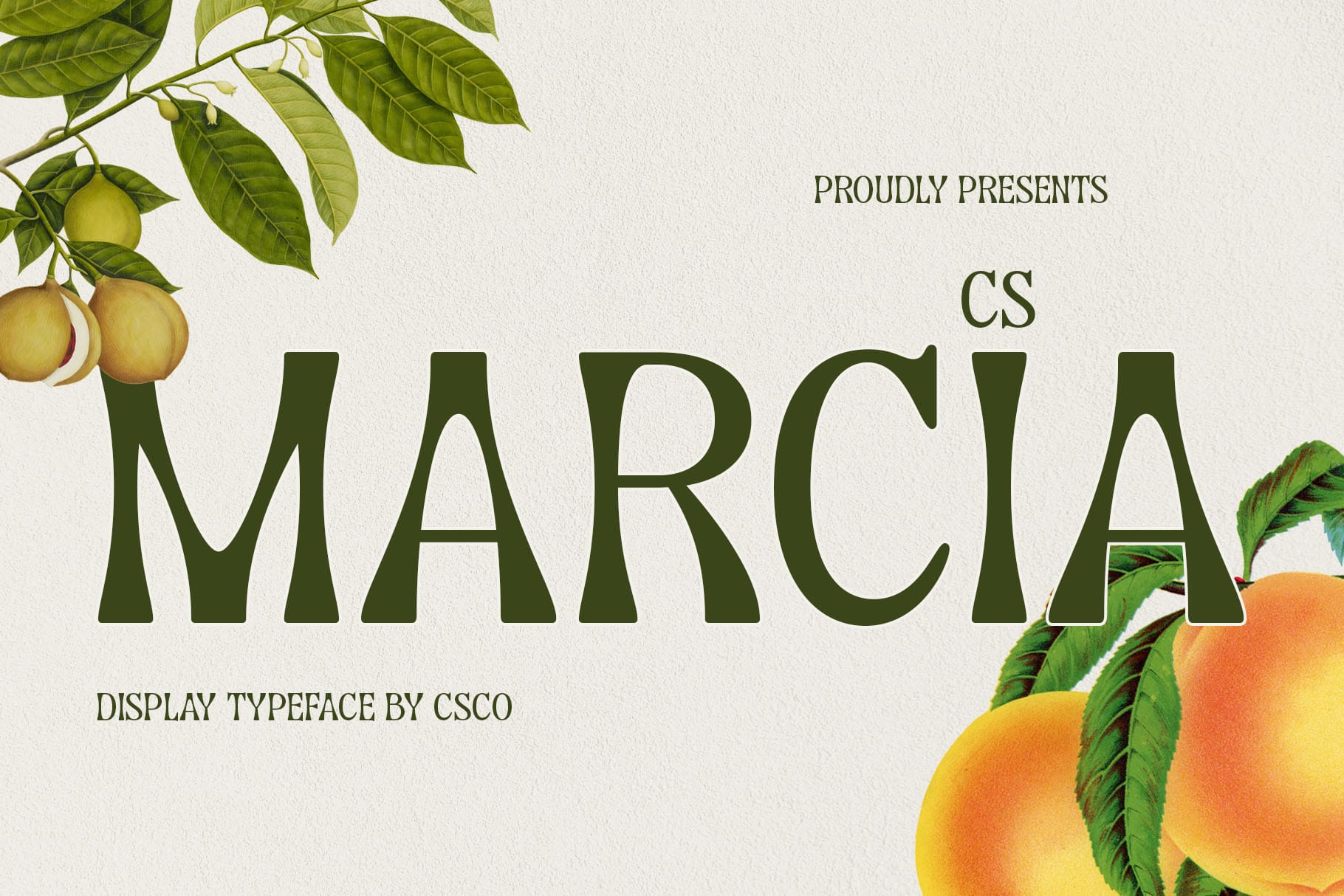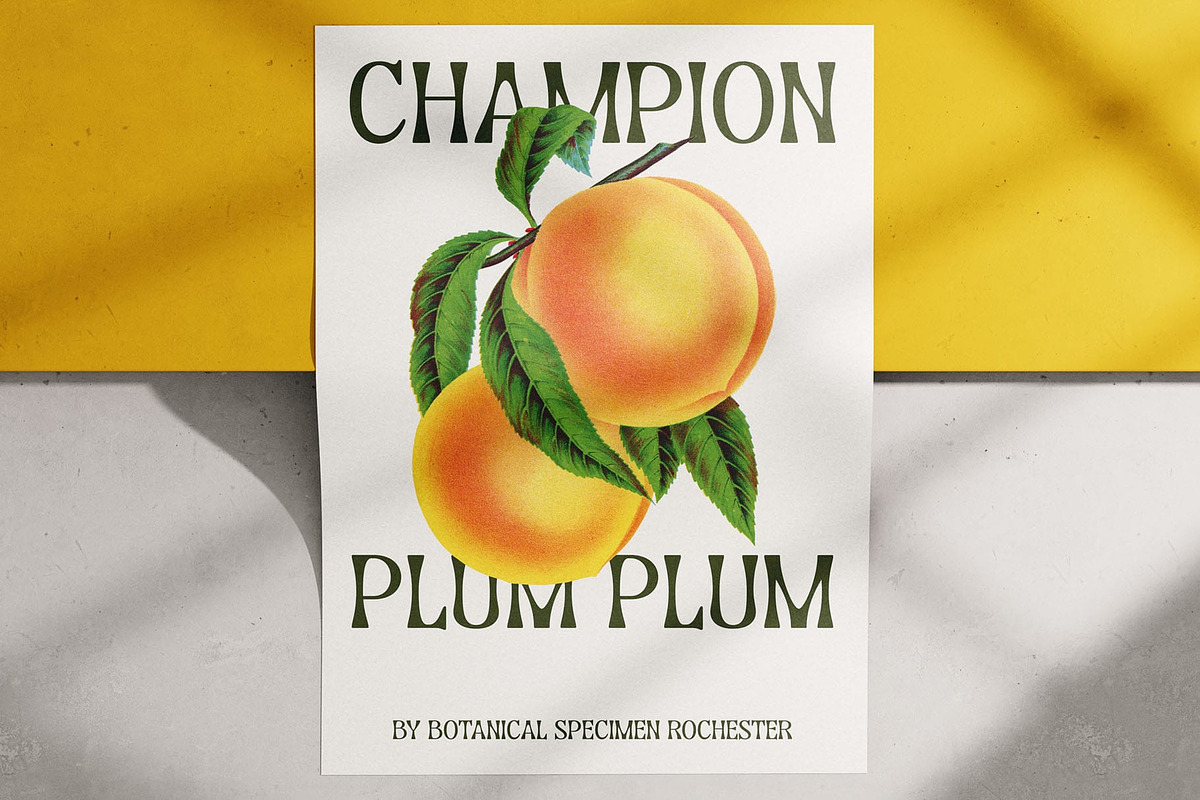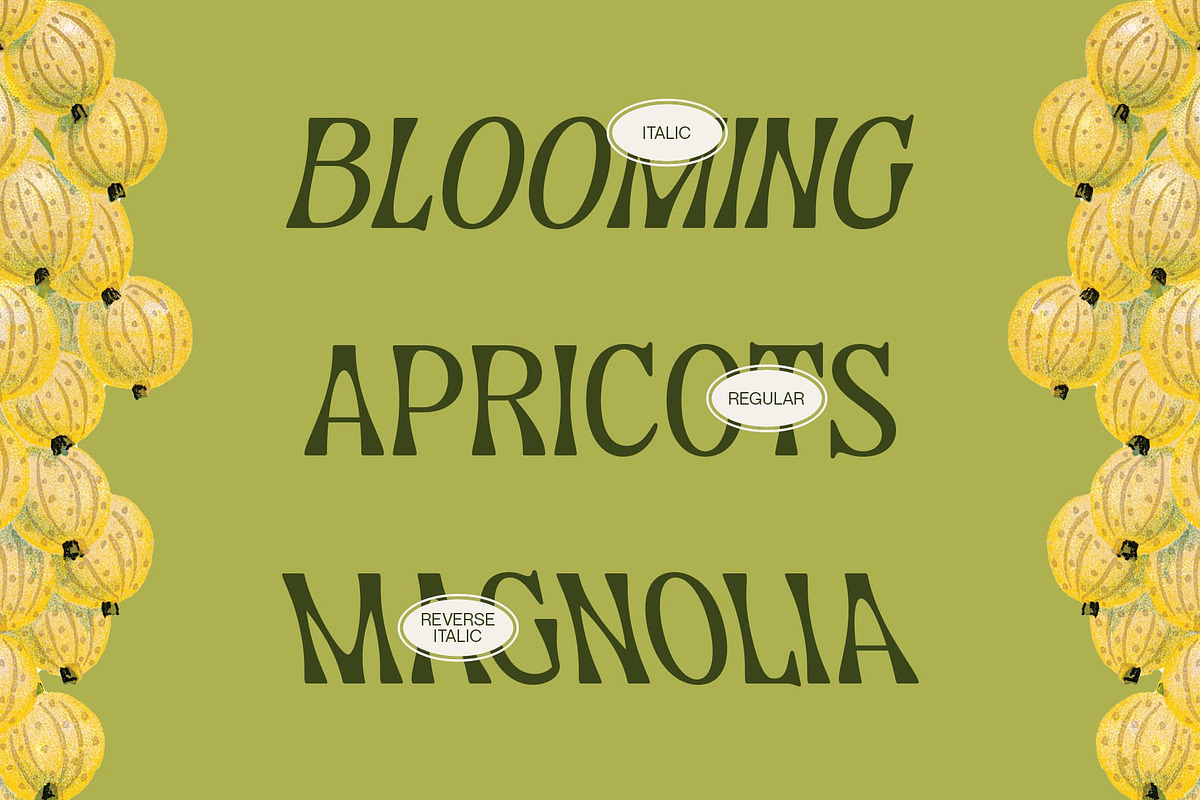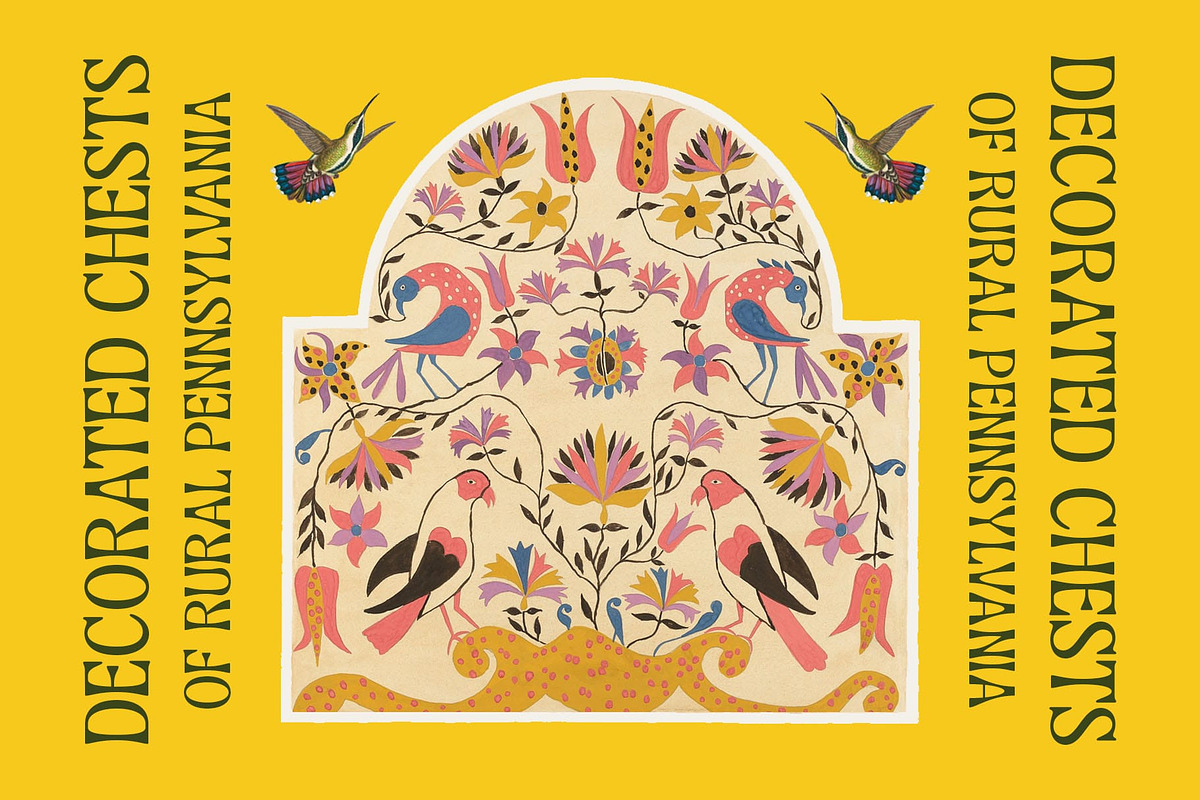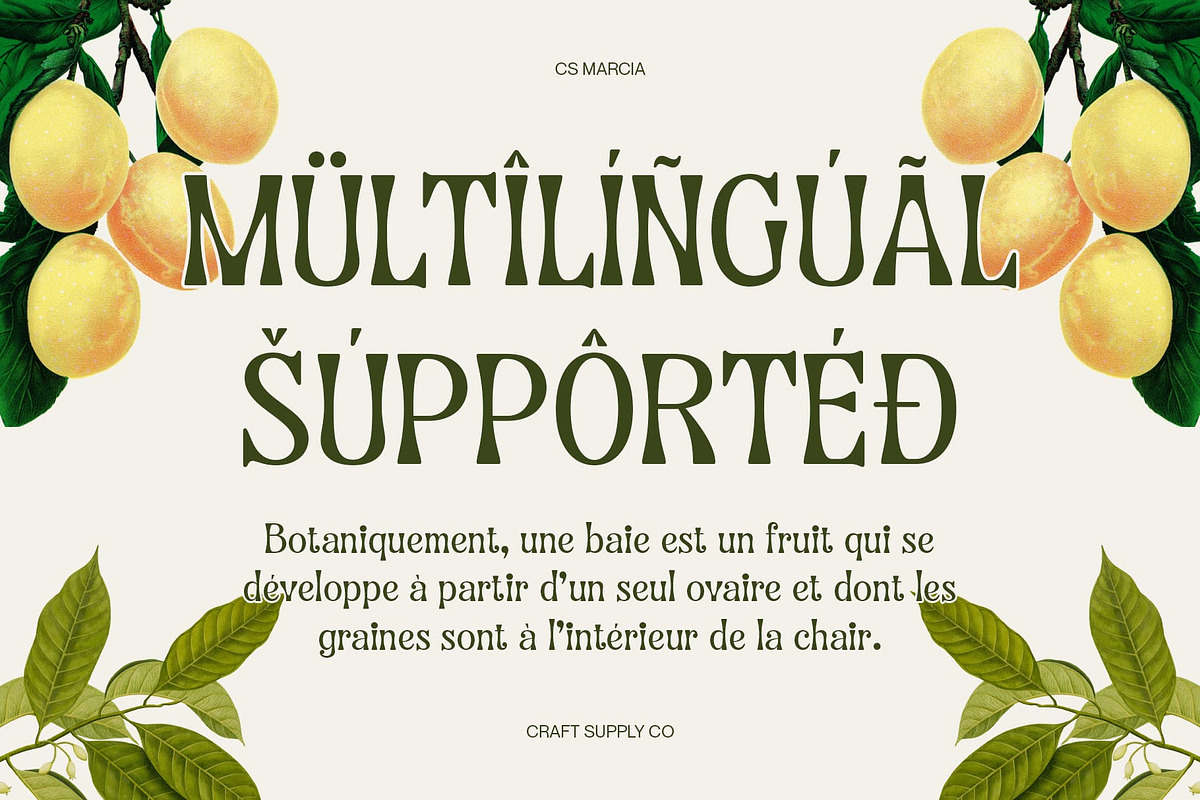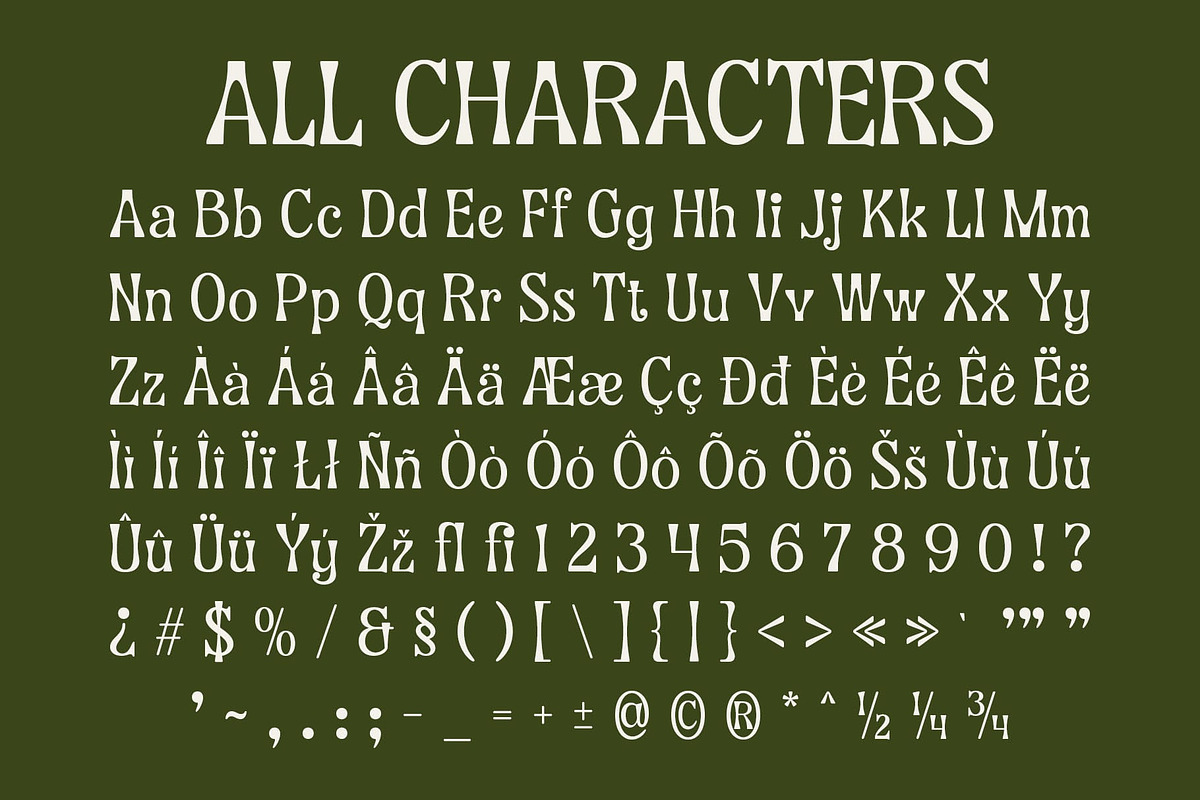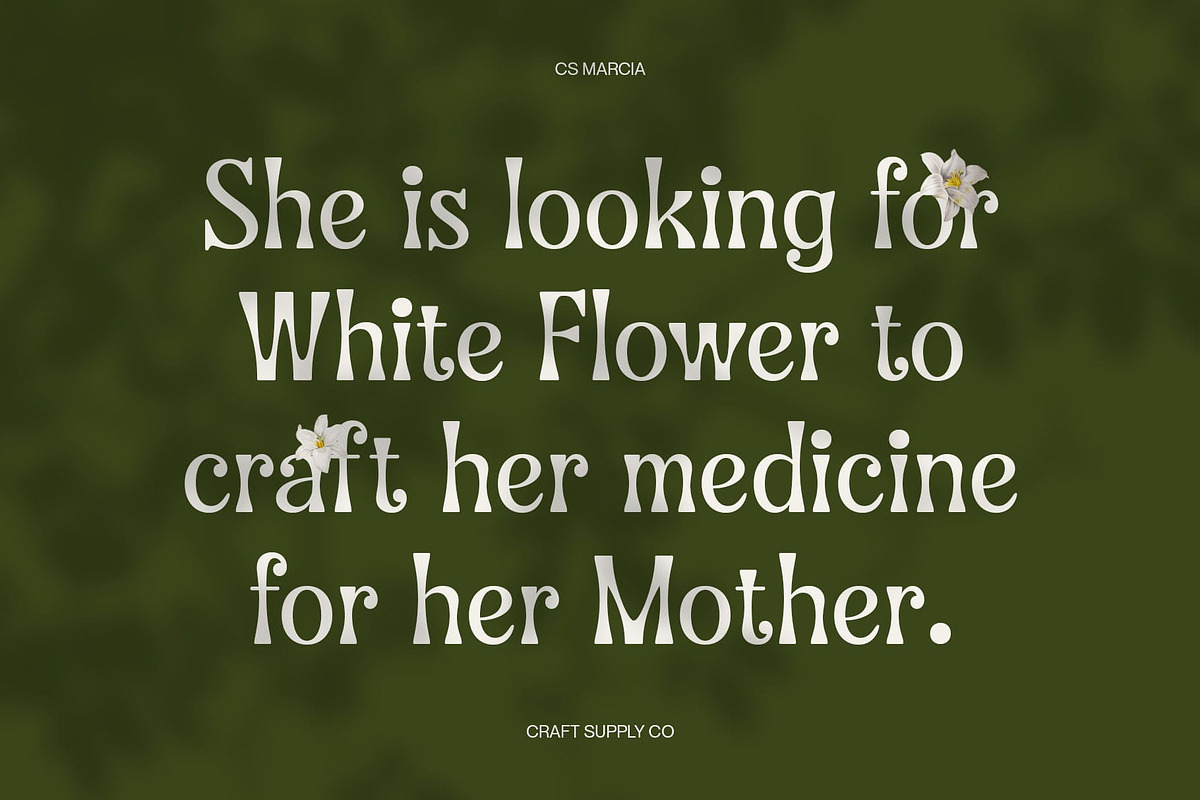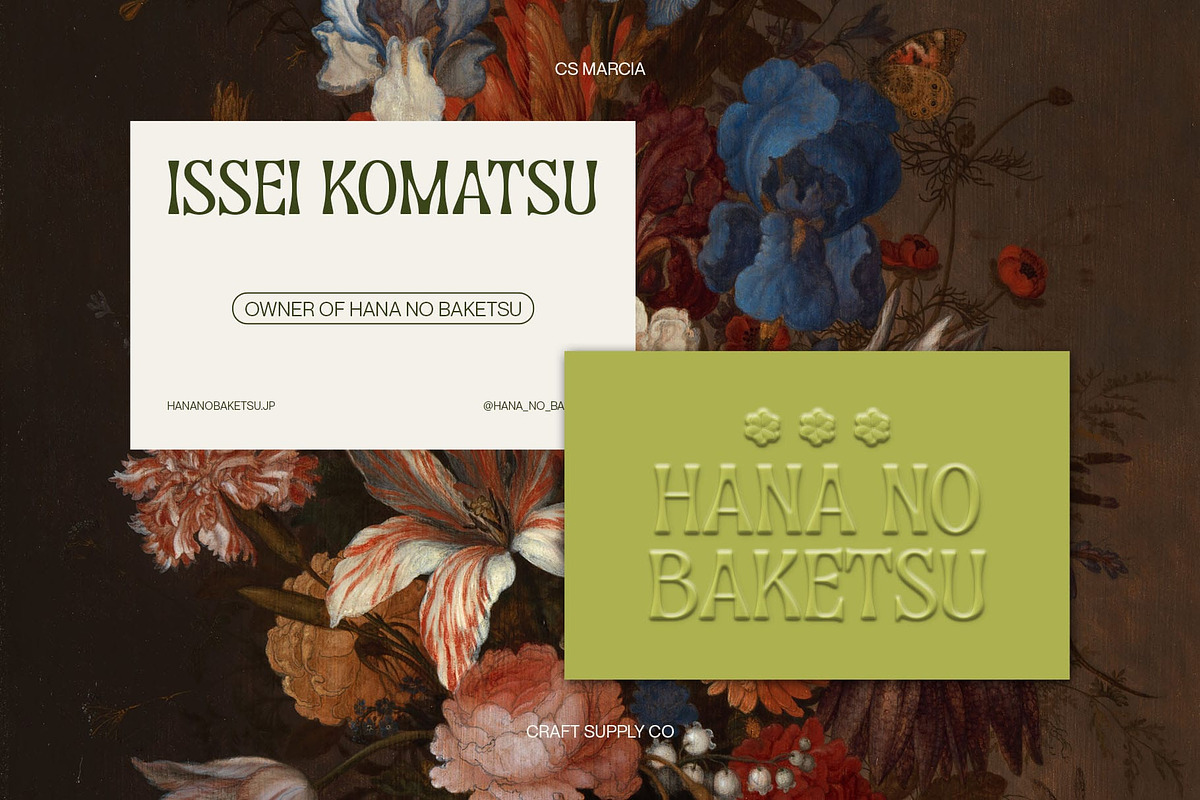
CS Marcia – Aesthetic Font
CS Marcia Font – The Epitome of Aesthetic Elegance
Modern Classic Display Serif CS Marcia is a modern classic display serif font that radiates aesthetic beauty with a touch of refinement and sophistication. Designed with clean lines, balanced letterforms, and harmonious proportions, this font seamlessly blends timeless elegance with contemporary style, making it a versatile choice for high-end design projects.
Graceful and Luxurious Appeal Featuring delicate strokes and a refined structure, CS Marcia embodies a luxurious and feminine aesthetic. Its subtle contrast and smooth curves create a sense of grace and exclusivity, ensuring that any design using this font stands out with a polished and high-class feel.
Versatile for Premium Branding and Editorials Whether applied to beauty branding, fashion campaigns, editorial layouts, or luxury packaging, CS Marcia enhances the visual appeal with its sophisticated and minimalistic presence. Its modern yet classic essence makes it an excellent fit for projects requiring a chic, stylish, and effortlessly elegant touch.
Aesthetic Font for Timeless Designs CS Marcia is not just a font—it’s a statement of modern grace and exclusivity. Designed for those who appreciate clean sophistication, it serves as the perfect choice for designers looking to create an atmosphere of luxury, beauty, and artistic refinement.
- CS Marcia Regular
- CS Marcia Italic
- CS Marcia Reverse Italic